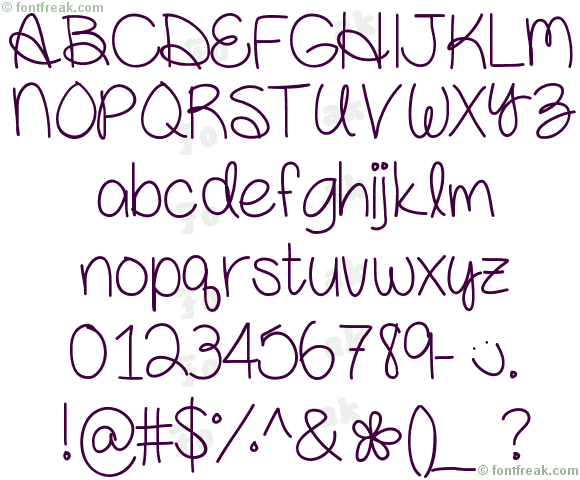
AmandaRae
AmandaRae by Vanessa Bays is a charming handwritten font that exudes warmth and personality. This font features a fluid, cursive style characterized by smooth, sweeping strokes and a playful, inviting appearance. The stroke weight is consistent, offering a balanced visual that enhances readability while maintaining an artistic flair. The letters are well-spaced, promoting clarity and legibility, making it an excellent choice for various applications.
The AmandaRae font is perfect for a range of creative projects. Its whimsical style makes it an ideal choice for wedding invitations, where a touch of elegance and romance is desired. Additionally, it can elevate the aesthetic of restaurant menus, providing a friendly and approachable vibe that aligns with a cozy dining experience. Graphic designers may also find it useful for crafting social media graphics or blog headers, where a personal touch can capture attention. Furthermore, this font is great for greeting cards, adding a heartfelt element to any message.
The target audience for AmandaRae includes graphic designers, small business owners, and content creators who seek to infuse their work with a unique and inviting character. This font resonates particularly well with those looking to connect emotionally with their audience, making it a valuable asset for personal and professional projects alike.
What truly sets the AmandaRae font apart is its ability to blend elegance with a casual, friendly demeanor. This versatility allows it to shine in various contexts, whether used for formal occasions or informal settings. For those seeking a unique touch in their design work, the AmandaRae font free download provides an opportunity to enhance creativity and expression. Embrace the charm of AmandaRae and let your projects stand out with this delightful typeface.